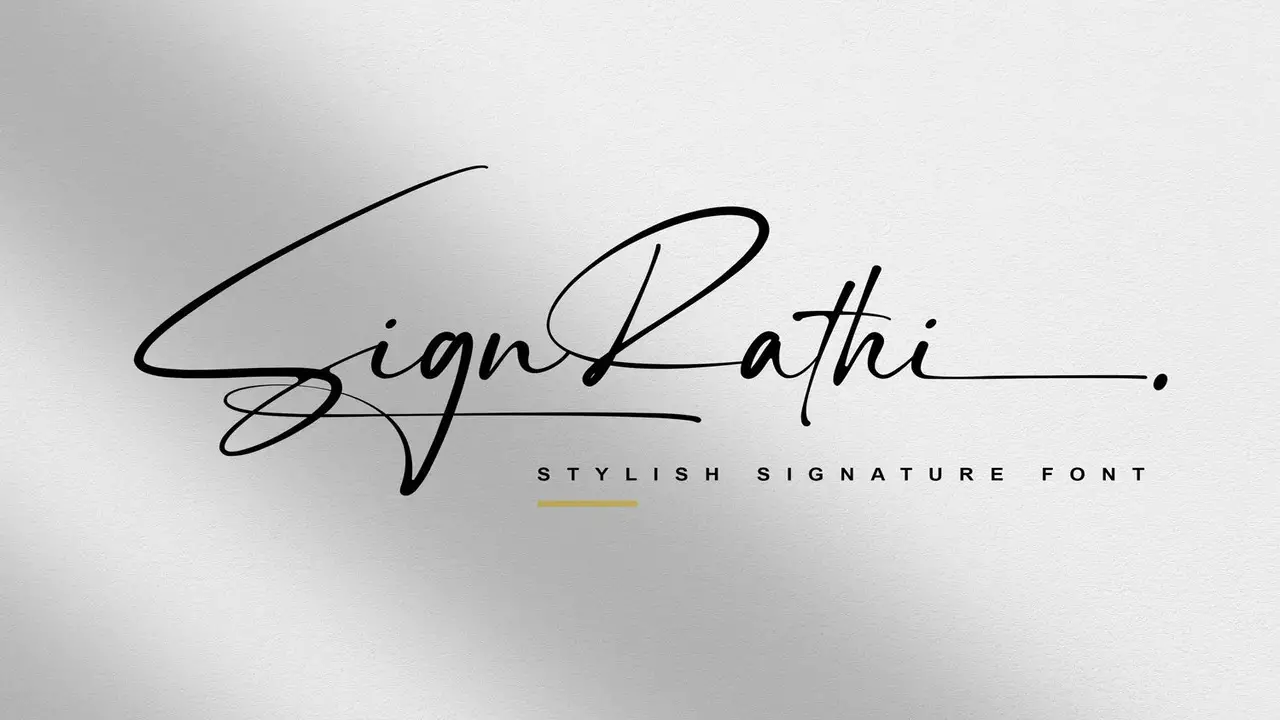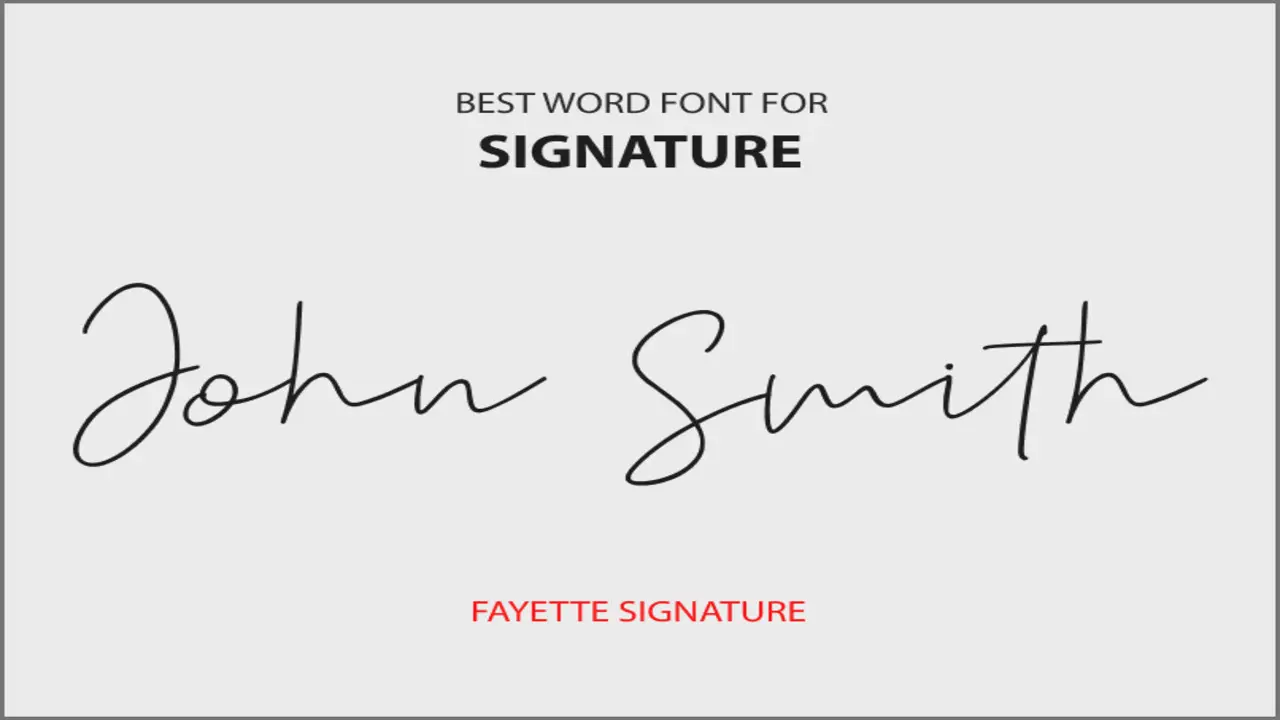
When creating a document in Microsoft Word, choosing the right font can make all the difference. While there are plenty of standard fonts to choose from, sometimes you may want to use a unique signature font to add a personal touch to your document.
A signature font can also be useful for signing digital documents or creating a professional-looking email signature. We will teach you how to create a signature font step. We have covered you by choosing the right font style and customizing the size to add stylish characters and special effects. Not interested in creating one? We also have got tips on how to download signature font in Word. We have compiled a list of the best signature font on word, so you can choose one that suits your style and personality.
What Is A Signature Font On-Word?
A signature font in Word is a type of font that simulates the look of a handwritten signature. It can be a great way to add a personal touch to your documents, such as letters or emails. Signature fonts are typically cursive or script fonts designed to resemble handwriting, complete with loops and flourishes.
Some common examples of signature fonts in Word include “Segoe Script” and “Lucida Handwriting.” Using a signature font on-Word can give your documents a more professional and polished appearance while maintaining a personal touch.
How To Create A Signature Font On Word?
Creating a signature font on Word is easy and can be done in a few simple steps. First, choose a cursive or script font you like and type out the letters of your signature using that font. Next, adjust the font size to match the size of your signature.
You can highlight the text and change the font size in the formatting toolbar. Finally, add special effects or stylized characters, such as underlines or swirls, to complete your signature font. That’s it! You now have a unique signature font that you can use on all your documents.
Choose The Right Font Style
When choosing a signature font for your documents, it’s important to consider the style that best represents you and your brand. For example, if you want to convey a sense of elegance and sophistication. You may choose a more ornate script font with lots of flourishes. Alternatively, if you prefer a more modern and minimalist look, you could opt for a simpler cursive font with cleaner lines. Whichever style you choose, make sure it reflects your personality and enhances the overall aesthetic of your documents.
Customize The Font Size
Customizing the font size of your signature font is an important step in making it look authentic. Your signature should be the same size as when you sign on paper. So choose a font size that matches closely. Highlight the text you typed and adjust the font size until it looks right. Don’t be afraid to experiment with different sizes until you find the perfect one for your signature font. Remember, a well-proportioned signature font can significantly affect how professional and polished your documents appear.
Add Stylish Characters
Consider adding stylish characters such as underlines or swirls to give your signature font that extra personality touch. These can be found in the font’s character map or symbol section. Experiment with different options and placements until you find the perfect combination.
Just be sure not to overdo it – a few tasteful embellishments can enhance your signature font, but too many can make it look cluttered and unprofessional. With these tips in mind, you can create a signature font that elevates your brand and adds flair to all your documents.
Use Special Effects
Create a custom signature font in Word with special effects for an added personal touch to your documents or email signatures. Begin by writing your name in cursive with a black pen on paper. Convert it into a PNG file and easily insert it into Microsoft Word with the “Pictures” function under “Insert.” Customize its transparency by selecting “Format Picture” and “Remove Background,” then save the beautiful cursive font as your own unique typeface.
How To Download Signature Fonts On Word?
Several websites offer free and paid options if you’re looking for a quick and easy way to download signature fonts in Word. Simply search for “signature fonts for Word” and browse the options until you find one that suits your style. Once you’ve downloaded the font, simply install it on your computer and use it in Microsoft Word. Remember to choose a font size and style that best represents your personal brand and enhances the overall aesthetic of your documents.
Find Fonts Online
Looking for a unique signature font to use in your documents or emails? Consider searching for fonts online. Plenty of websites offer a wide variety of fonts, including signature fonts. Some websites even allow you to preview the font before downloading it, so you can see how it looks with your name. Once you’ve found the perfect signature font, simply download and install it on your computer. With a little customization, you’ll have a personalized signature font that adds a touch of elegance to all your written communications.
5.How Can I Customize My Signature Font To Match My Personal Style?
Ans: Customizing your signature font in Microsoft Word can be fun and creative. Start by selecting a base cursive or handwritten-style font you like, then adjust the size, spacing, and formatting to match your style. You can also add additional flourishes or accents to make it more unique. Don’t be afraid to experiment until you find the perfect signature font that represents you.